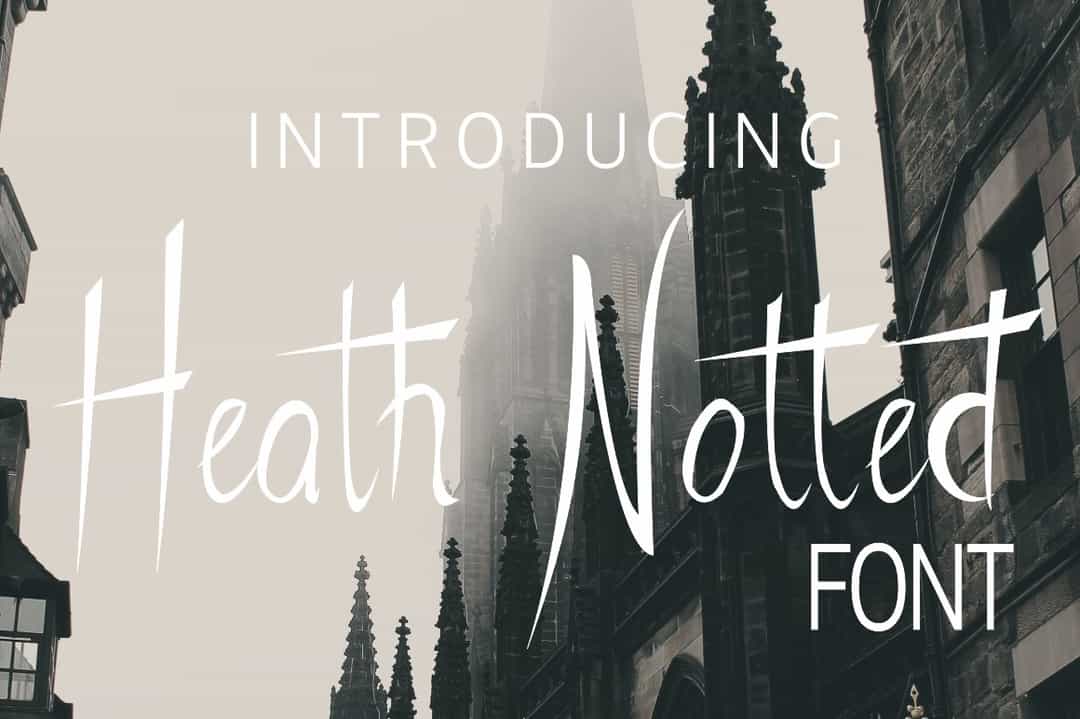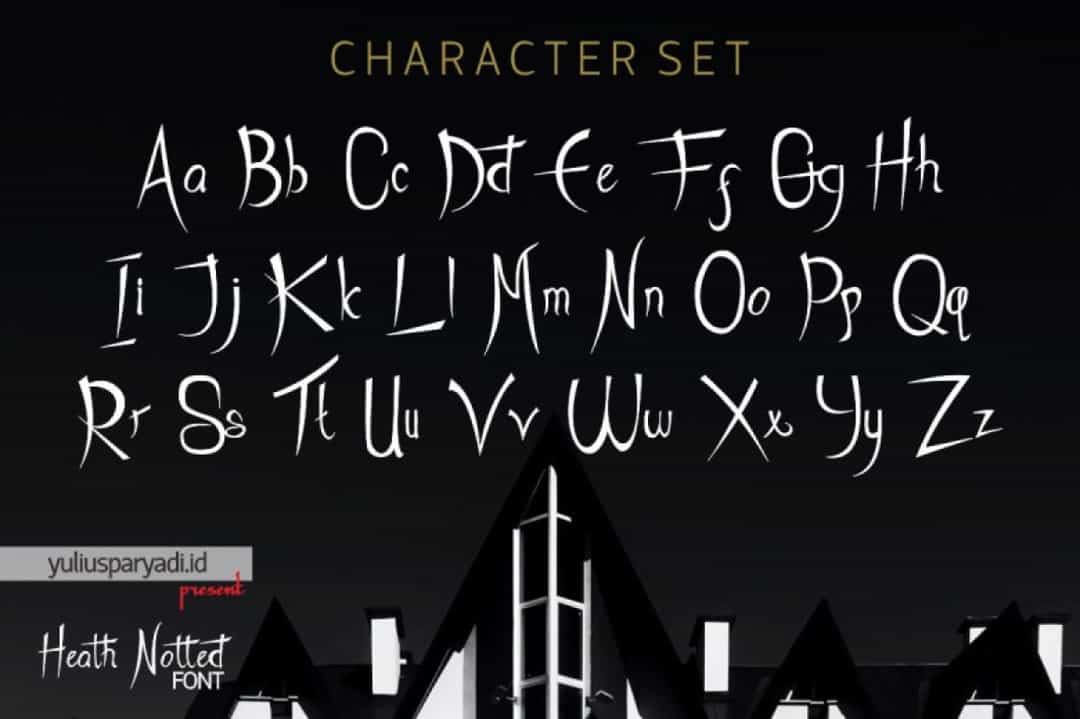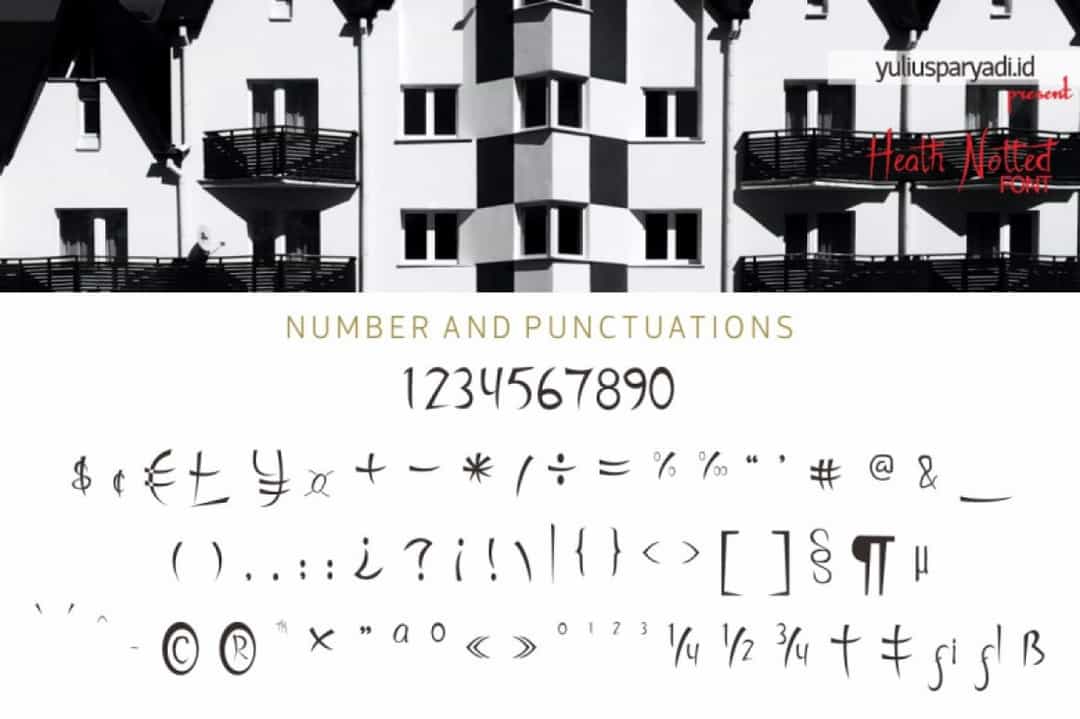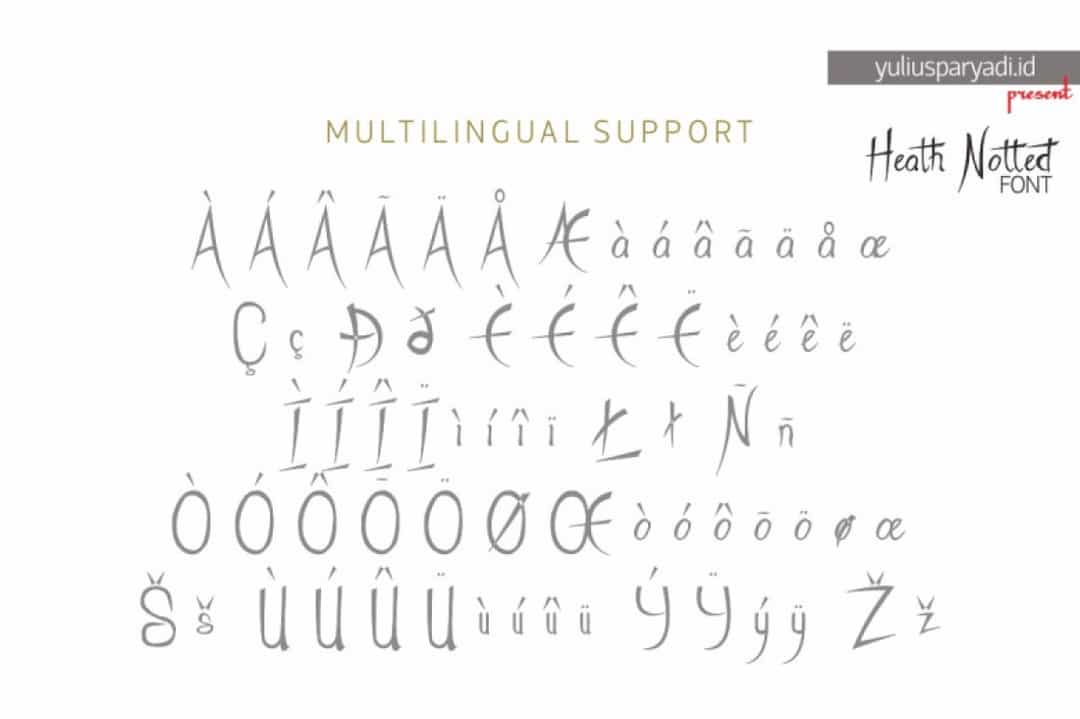
Heath Notted’s concept draws its inspiration from night, as there can be times when darkness can also be beautiful and transform into breathtaking landscapes.